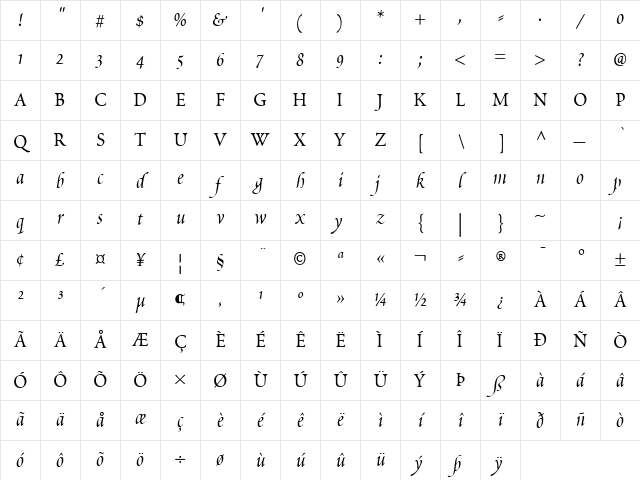
Poetica ChanceryIV Italic
Complete Poetica ChanceryIV Italic glyph index. Displaying only characters natively supported by Poetica ChanceryIV Italic font.
Design Context for Poetica ChanceryIV
Poetica ChanceryIV is a composed and adaptable typeface that performs quietly and consistently across a wide range of design contexts. The slanted form adds forward momentum and visual energy.